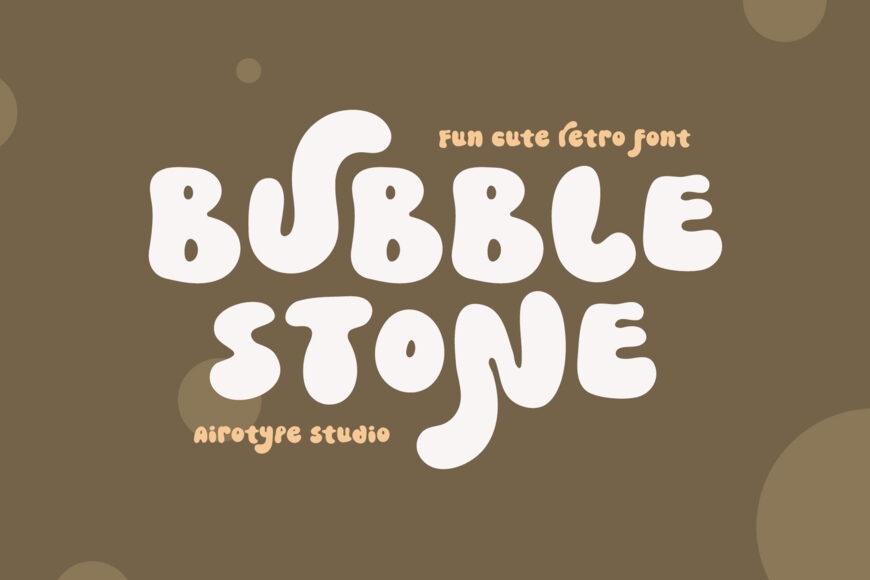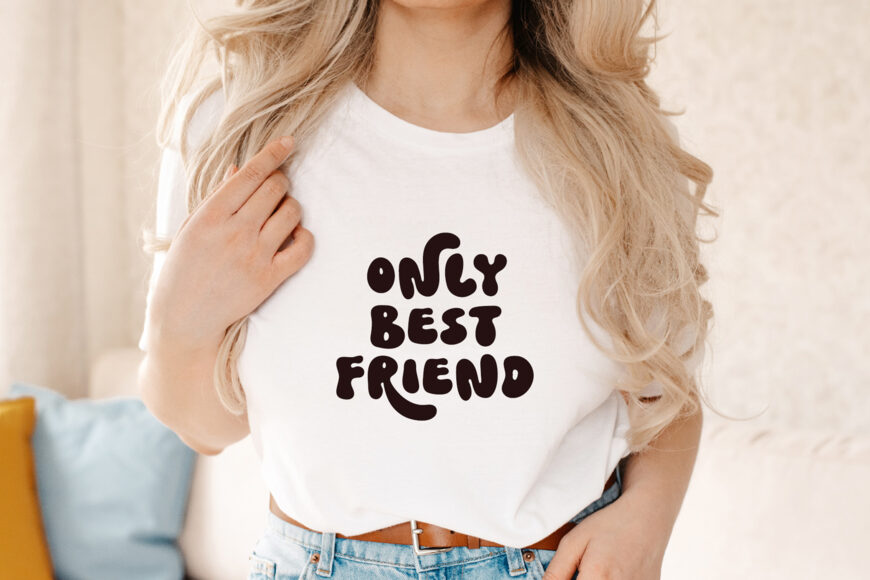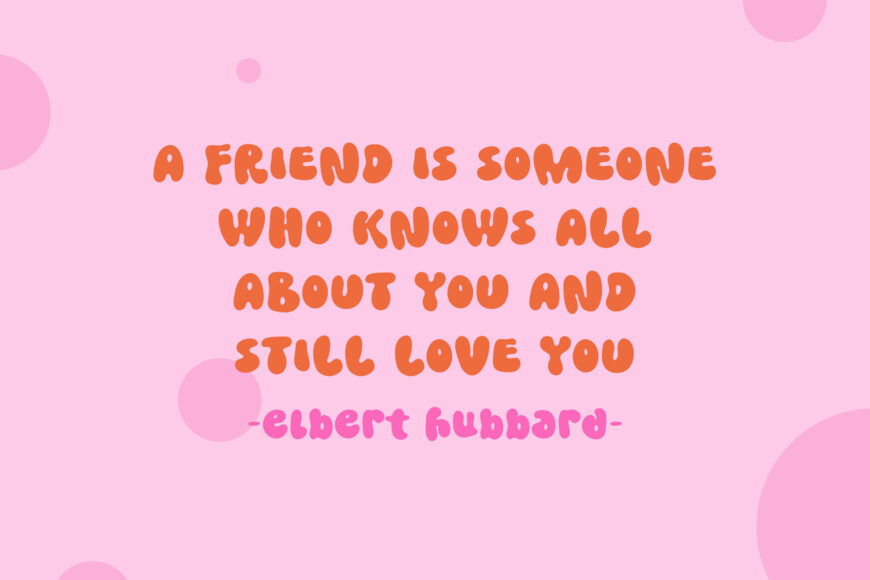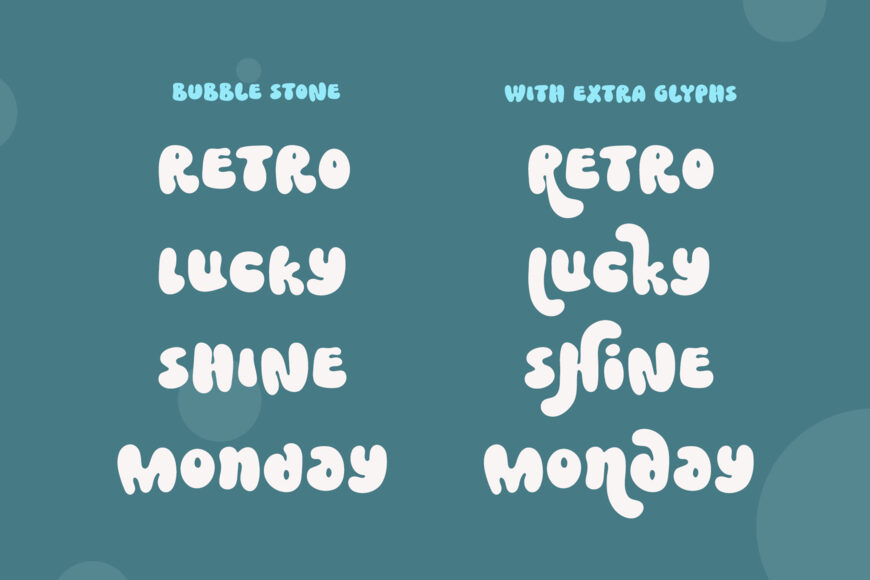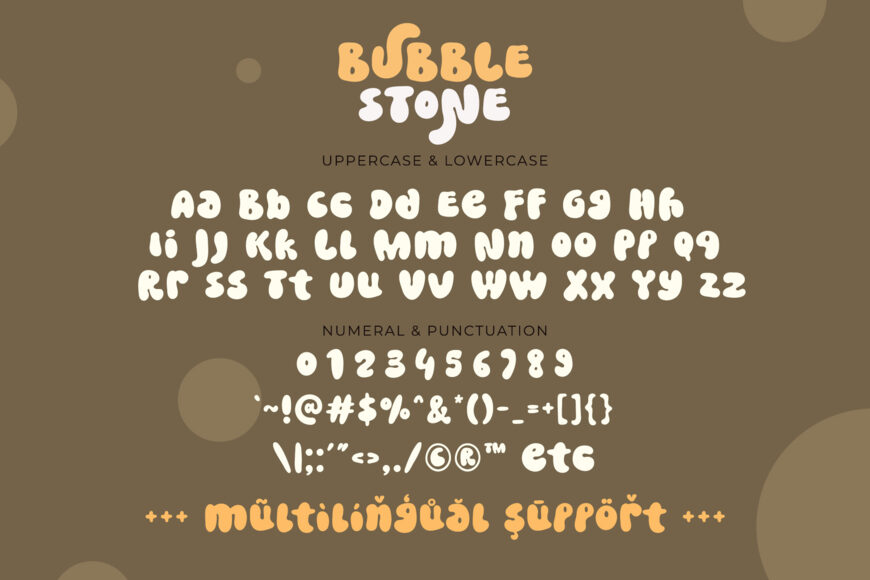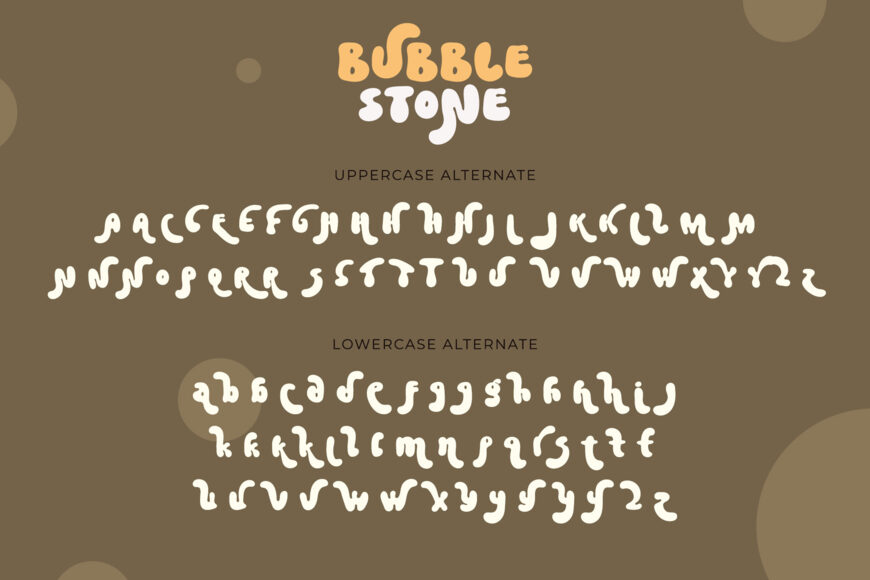
Bubble Stone Font
Bubble Stone is a fun and bubbly font with retro and vintage vibes. This versatile script font has a wide spectrum of applications ranging from greeting cards to headlines and is guaranteed to add an attractive feel to your next project. This font is PUA encoded which means you can access all glyphs and swashes with ease!